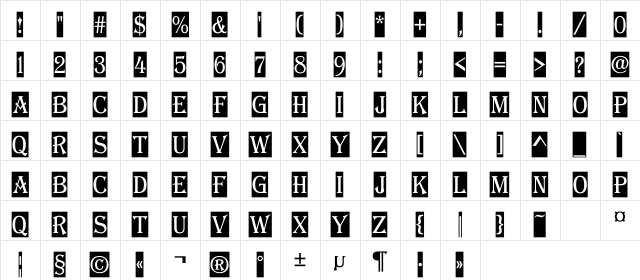
a_AlgeriusNrCm Regular Font Preview
a_AlgeriusNrCm Regular
Design Context for a_AlgeriusNrCm Typeface
a_AlgeriusNrCm offers clean, dependable letterforms without strong stylistic allegiance, making it a practical choice for designers who need flexibility.